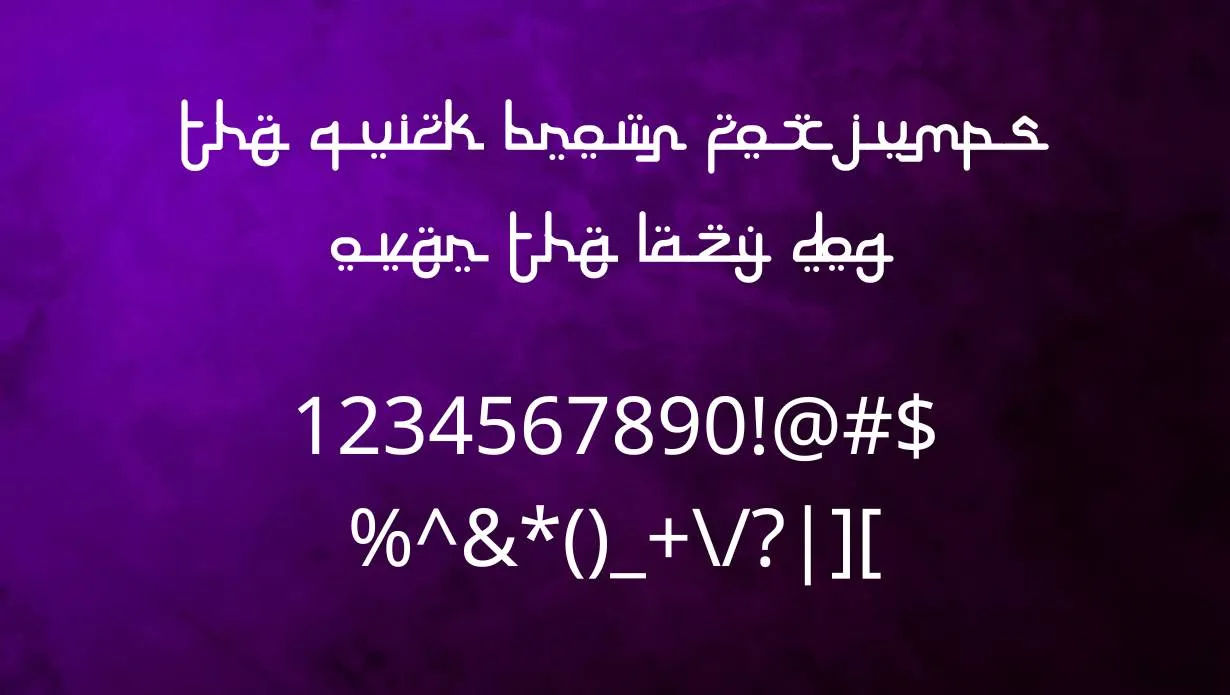
Ar Risalah Font is versatile and clear, suitable for branding, editorials, and clear signage. This font commonly supports file formats like OTF and TTF, ensuring compatibility across various design applications.
The font’s clarity and straightforward appearance make it a go-to choice for projects requiring readability without compromising on style. With its sleek and professional appeal, Ar Risalah Font ensures a clean and polished look for corporate documents or clear signage.